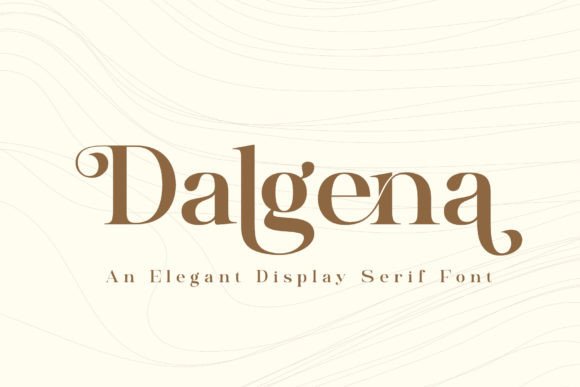
Immerse yourself in the transformative power of Dalgena, a captivating serif font family crafted by the visionary minds at Madatype Studio. Bold and assertive, this font is not just a collection of letters, but an arsenal of creative possibilities, ready to unleash your ideas onto the digital realm.
With its commanding presence, Dalgena demands attention, making it the perfect choice for those seeking to make a lasting impression. Whether you're crafting a captivating presentation, designing an eye-catching logo, or simply adding a touch of elegance to your everyday documents, Dalgena rises to the occasion, elevating your creations to new heights of sophistication.
Experience the versatility of Dalgena, a font that effortlessly adapts to a myriad of design landscapes. Its strong serifs exude a sense of authority, making it ideal for headings, titles, and other prominent text elements. Yet, it also possesses an underlying grace, lending itself beautifully to body text, ensuring effortless readability even in lengthy documents.
Dalgena's meticulously crafted characters embody the essence of professionalism, making it the perfect companion for business communication. Its sharp edges and precise lines convey a sense of competence and trustworthiness, leaving a lasting impression on clients and colleagues alike. Whether you're crafting a compelling proposal, delivering a dynamic presentation, or simply sending a routine email, Dalgena adds a touch of polish that sets you apart.
But Dalgena's allure extends beyond the realm of business. Its inherent beauty and expressive nature make it an inspired choice for personal projects as well. Unleash your creativity as you craft heartfelt letters, design personalized invitations, or create stunning social media posts that capture the essence of your unique style. With Dalgena as your creative ally, your words and ideas will resonate with an emotional depth that captivates your audience.